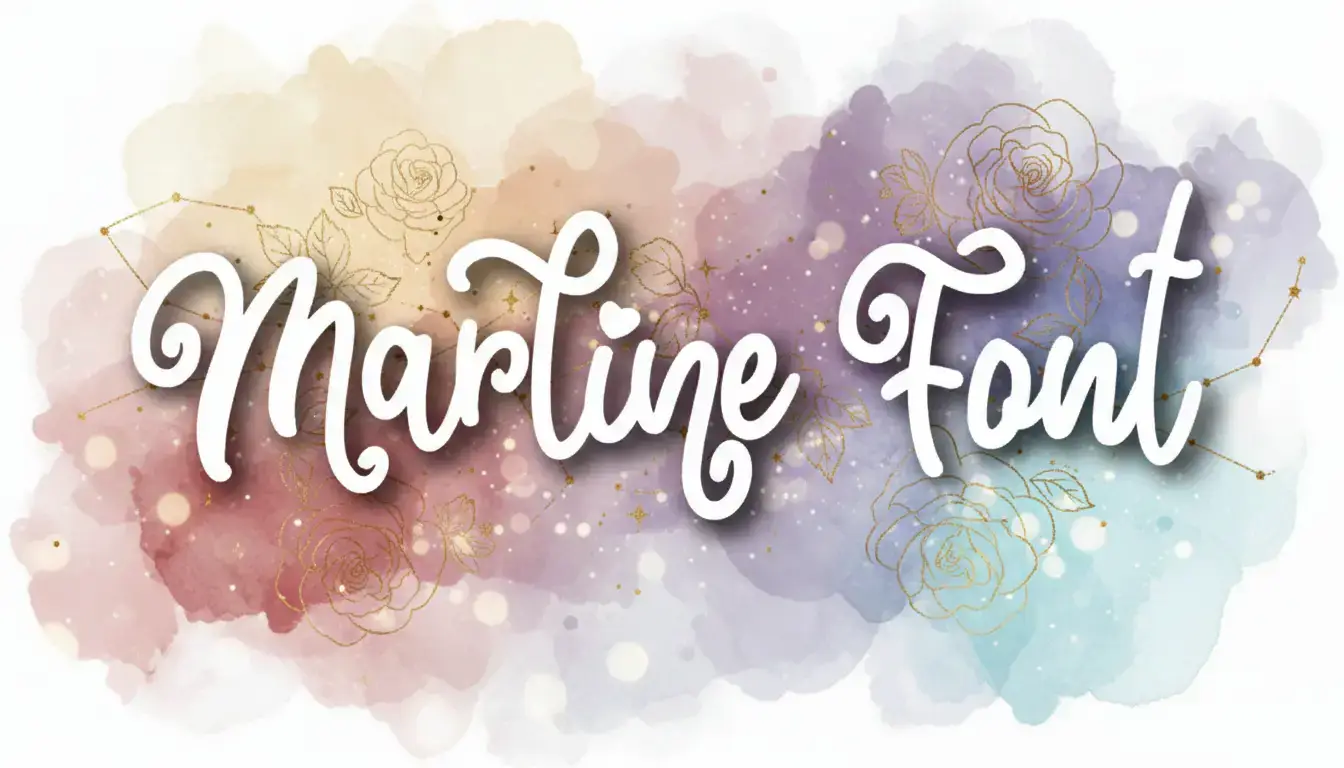
Marline Font
Marline is a fancy font made by Donis Miftahudin. Bold and full of character, it's built to stand out rather than blend in. You can download it for free and test it with your own words in the preview above.
What You Can Type With Marline
With complete upper and lowercase letters and all ten digits, Marline is ready for real wording, not just a single headline. Everyday marks like &, !, ? and @ are there too. Thanks to its accented letters, it also works for Spanish, French, German, Portuguese and Italian, not just English.
Where Marline Works Best
Marline is a natural fit for posters, logos and eye-catching headlines. Use it for one standout word or headline and let simpler fonts handle the rest.
Does Marline support accented letters?
Yes. Marline includes the accented letters needed for Spanish, French, German, Portuguese and Italian, so it works for more than just English.